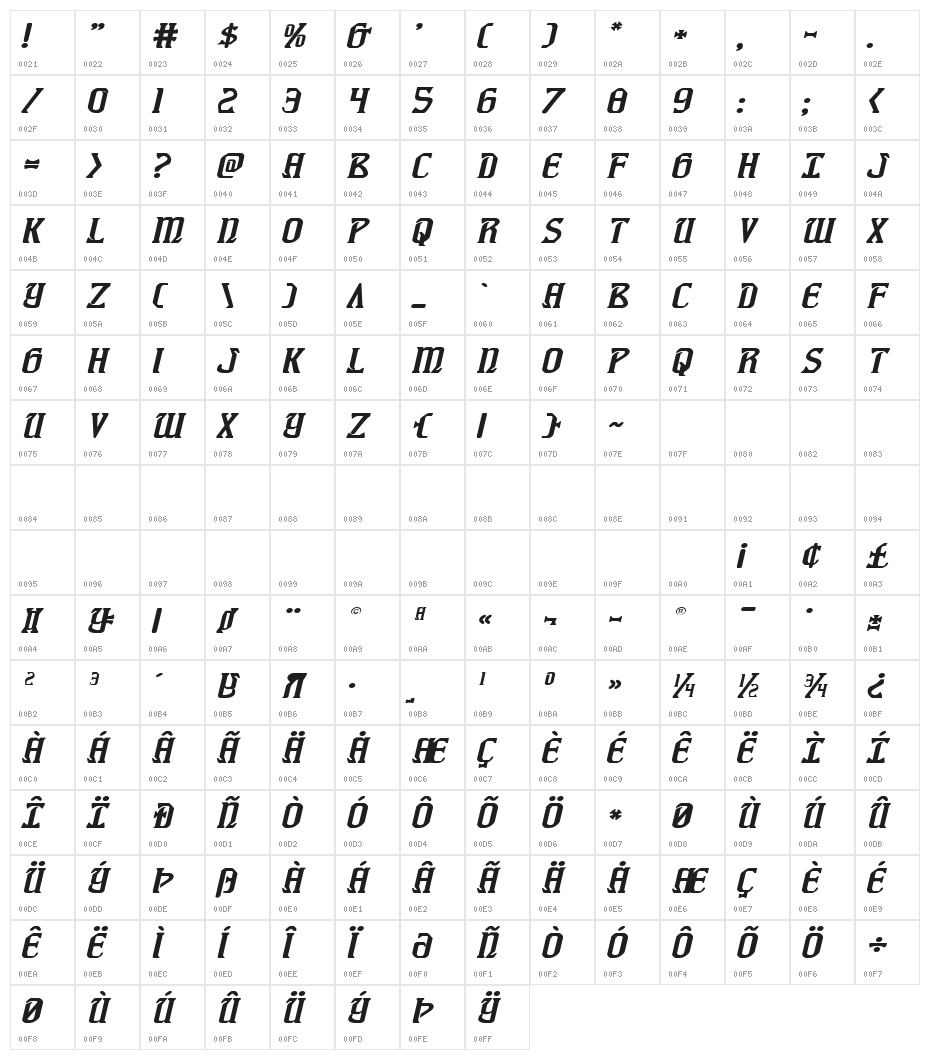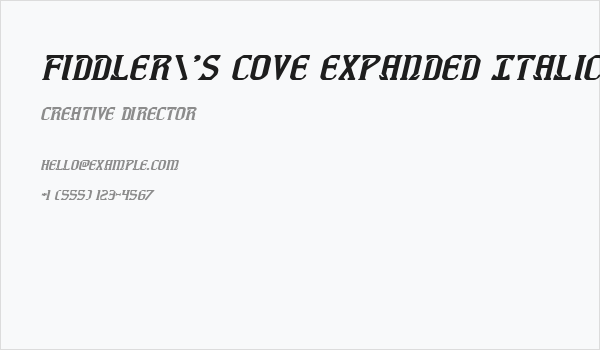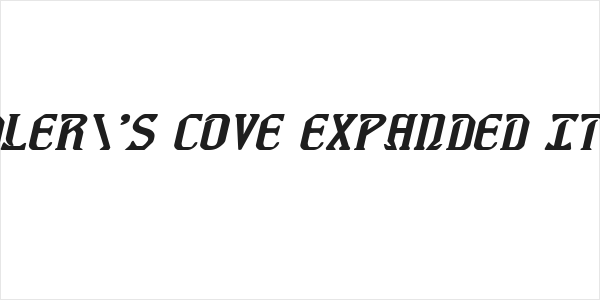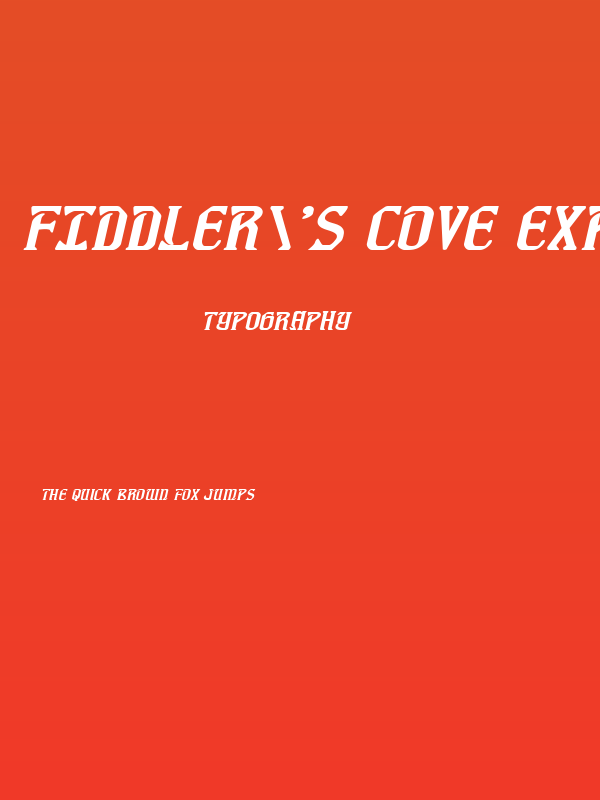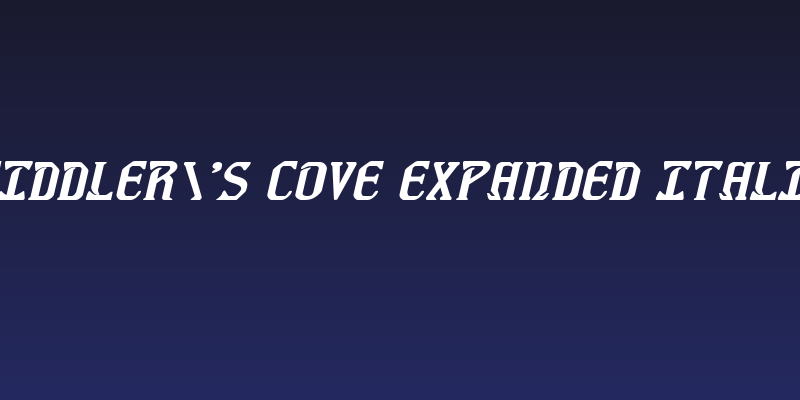
Fiddler's Cove Expanded Italic Font
Fiddler's Cove Expanded Italic Description
This font exhibits a bold and dynamic style with a distinct italic slant, giving it a sense of movement and energy. The characters are expanded, providing a wide and open appearance that enhances readability while maintaining a strong visual impact. The strokes are thick and consistent, contributing to a high contrast that makes each letter stand out prominently. The design is reminiscent of vintage or retro styles, yet it carries a modern flair that makes it suitable for contemporary use. The uppercase and lowercase letters are well-balanced, and the numerals and special characters are crafted with the same attention to detail, ensuring uniformity across all glyphs.
| Overall Style | Vintage, Modern |
| Proposed Projects | Ideal for branding, poster design, headlines, and any project requiring a bold, eye-catching typeface. |